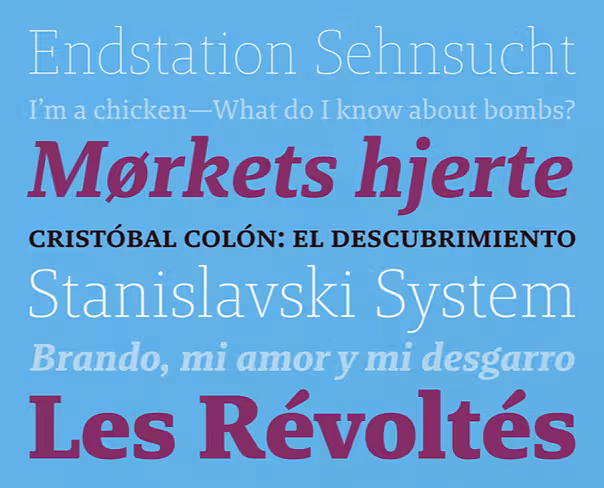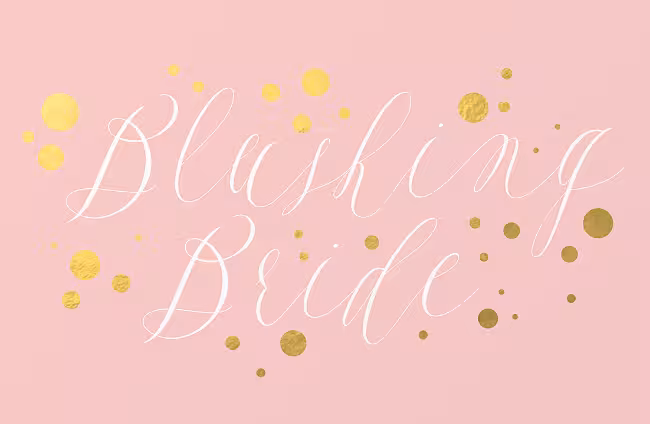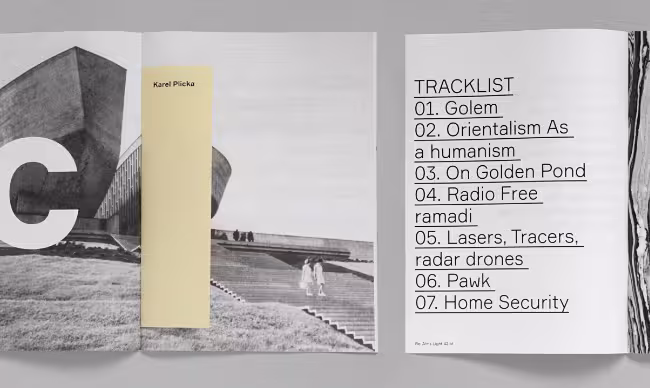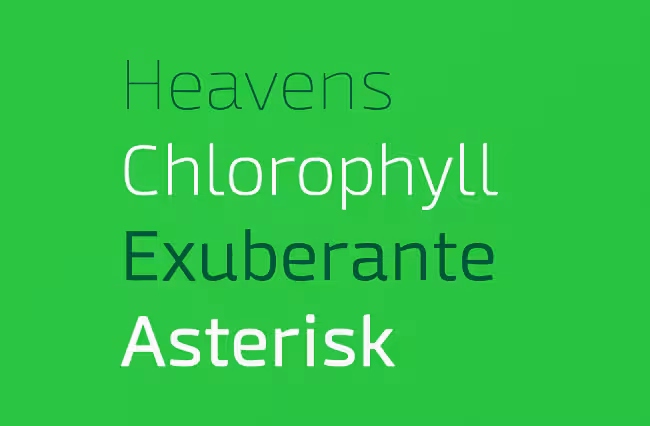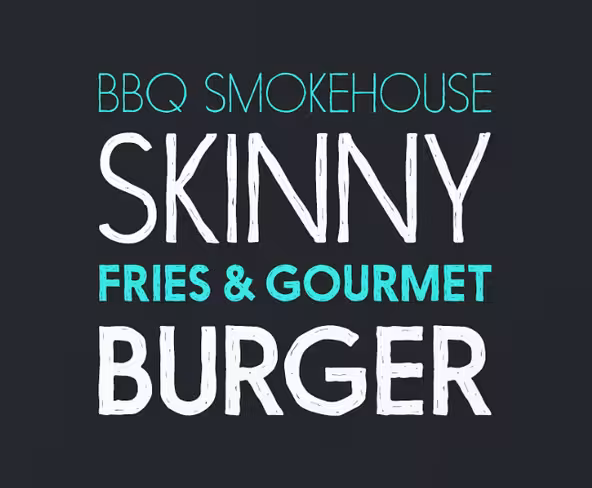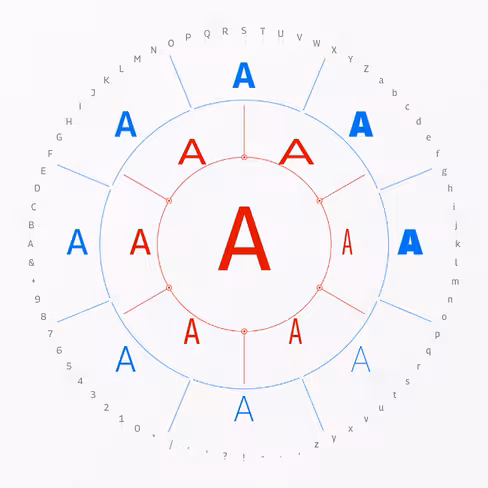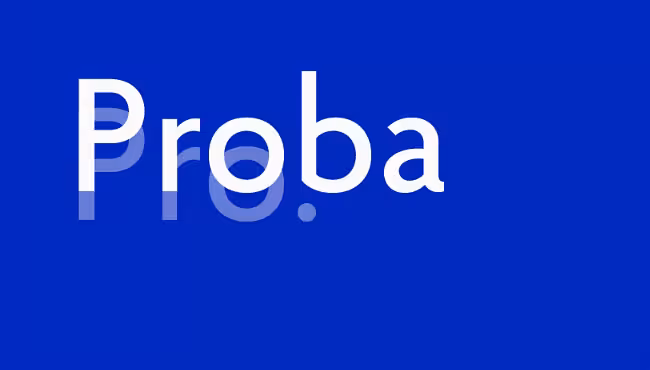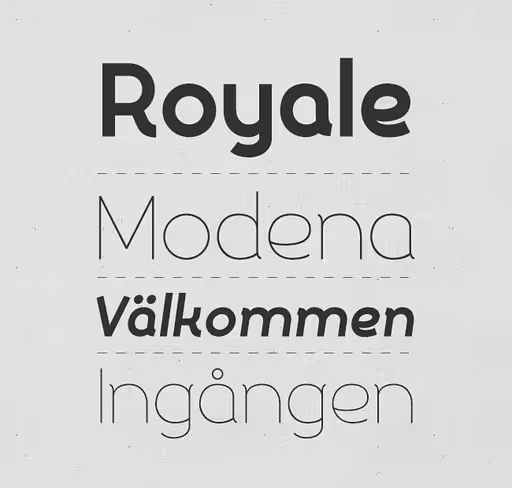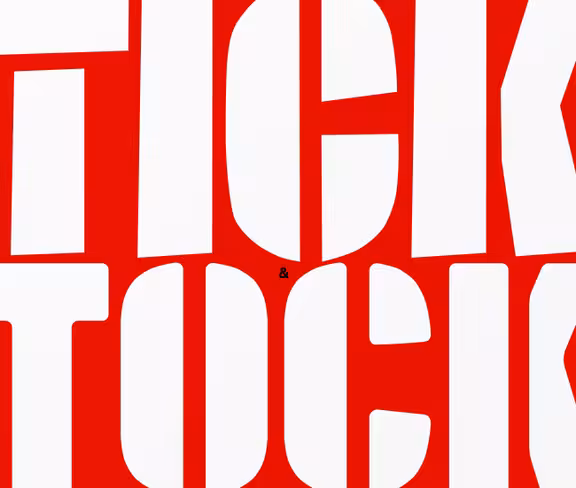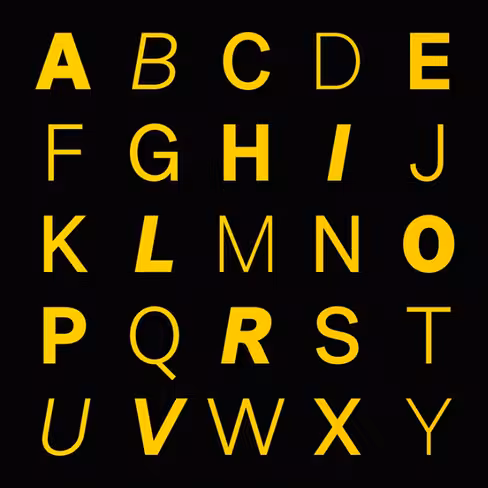
Our favorite typefaces from May 2014
Yellow Design Studio: Eveleth
Eveleth is a premium letterpress family with exceptional realism and vintage charm.
Laura Worthington: Adorn
Warm and welcoming, Adorn offers seven display fonts, four script designs, monograms, ornaments, illustrations, banners, frames and catchwords.
Typotheque: Valter
Valter is a graceful and slightly cheeky collection inspired by pointed-pen writing.
Doubletwo Studios: XXII YeahScript
XXII YeahScript is a versatile brush script with a large range of alternates.
Suitcase Type Foundry: Urban Grotesk
Urban Grotesk attempts to follow the best of traditions of Grotesk typefaces.
Thinkdust: Nanami Handmade
Nanami Handmade is a handmade family with 19 weights and a quirky, mischievous charm.
Carrois: Fira Sans
Fira Sans was commissioned by the Mozilla Foundation for the Firefox OS and released under the SIL Open Font License.
Great Lakes Lettering: Feast
Feast’s hand-sculpted letterforms emanate a powerful, yet delicate presence.
Mint Type: Proba Pro
Proba Pro is a geometric sans with a subtle humanist touch.
Type Dynamic: Elysio
Elysio is a condensed, humanist sans.
Font Bureau: Tick & Tock
A pair of stencil typefaces by Cyrus Highsmith.
Nine Font: Briko
Briko’s bumpy outline and soft edges give it a friendly feeling.
Kyle Wayne Benson: Kansas Casual
Kansas Casual is a completely unique take on an overdone classic.
Corradine Fonts: Wild Pen
Wild Pen was written with an experimental pen made from recycled plastic bottle.
Monokrom: Mønster
Odd letterforms and exaggerated shapes combine into powerful, vigorous patterns.
TypeUnion: Silo
Silo is a fluid sans-serif typeface embodying energetic curves and a clean, functional structure.
Magpie Paper Works: Woolen
Woolen is a hand-inked and italicized serif, based upon a 17th century type specimen.
Phospho: Luxus Brut Sparkling
Luxus Brut Sparkling evokes timeless elegance.
Parachute: Bague Inline Pro
A contemporary geometric typeface.
S-Core: Core Rhino
Core Rhino displays warmth through its roundness and curved letterforms.